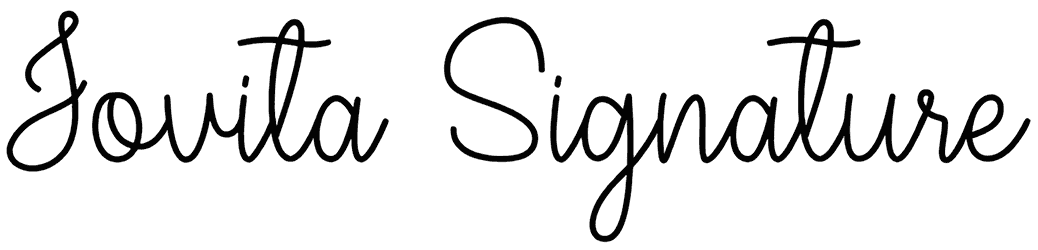
Jovita Signature Font
Let’s lend your words a ravishing and minimal vibe with this casual calligraphy font. Jovita Signature has a slim and twisty letterform that would be an apt pickup for various subjects. Use this handwritten font for your modern designs, namely postcards, apparel, tattoos, packaging, or a lot more others the same, and show off your unique taste.